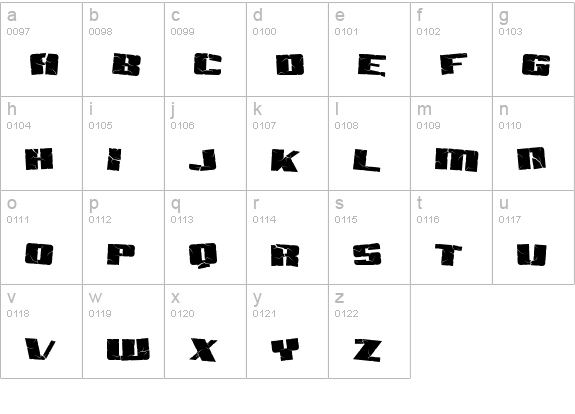
SF Aftershock Debris Font Details
SF Aftershock Debris font is a stunning display typeface that captures the essence of chaotic energy and destruction. Its bold and jagged letterforms reflect the aftermath of a powerful earthquake, with shattered lines and fragmented shapes that symbolize the debris left in its wake. With its unique blend of sharp angles and rough edges, SF Aftershock Debris font commands attention and demands to be noticed. It exudes a sense of intensity and urgency, making it perfect for designs that aim to make a bold statement or convey a sense of drama. Whether you're creating posters for a thrilling action movie, designing album covers for a heavy metal band, or crafting captivating headlines for a sports event, SF Aftershock Debris font will add a dynamic touch to your projects. Its distinctive style creates a visual impact that is hard to ignore, leaving a lasting impression on your audience. One of the best things about SF Aftershock Debris font is that it is available for free download at FontsMarket.com. This means that you can easily access and use this incredible typeface without any cost or restrictions. Simply visit FontsMarket.com, locate SF Aftershock Debris font, and start incorporating its powerful aesthetic into your designs. Don't miss out on the opportunity to bring the intensity and energy of SF Aftershock Debris font to your projects. Download it for free today and unleash its captivating visual appeal.